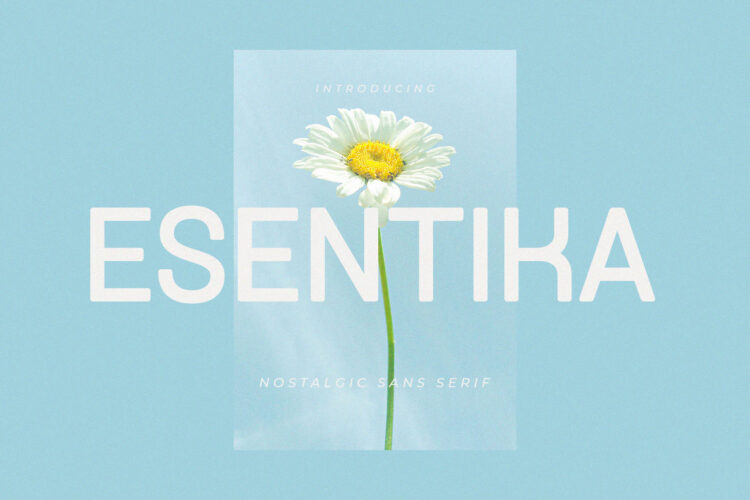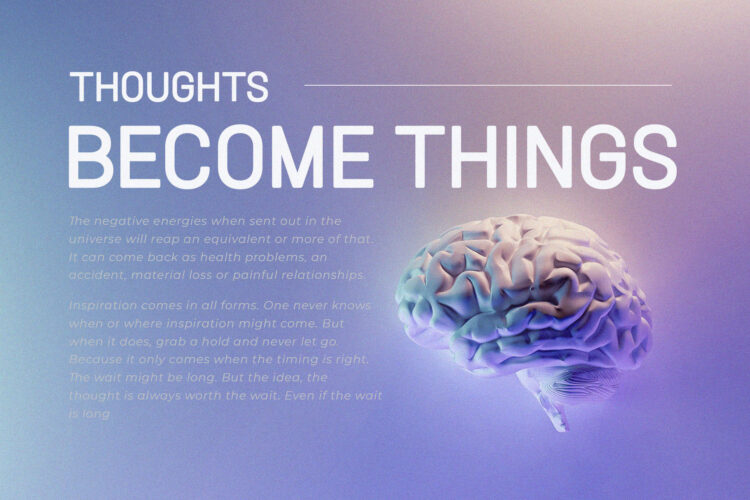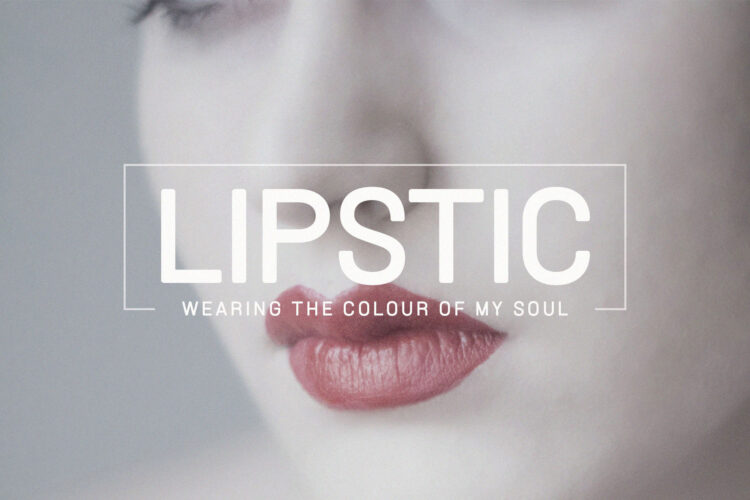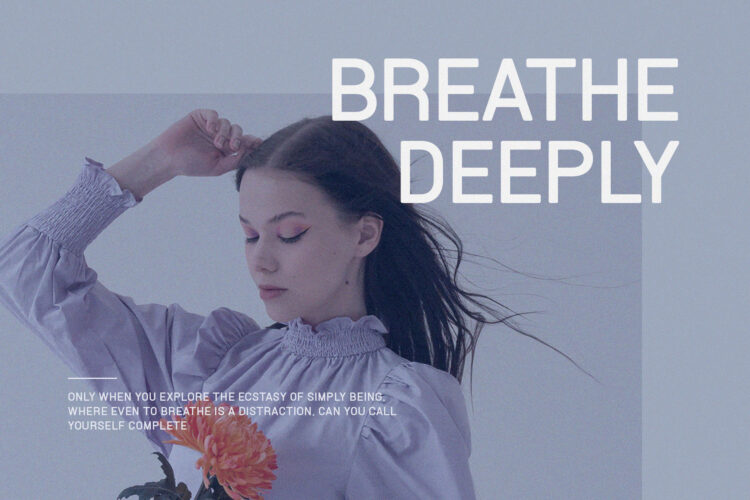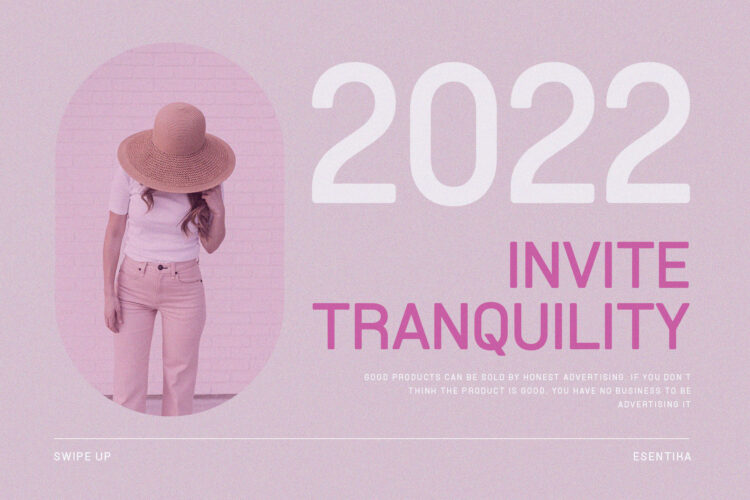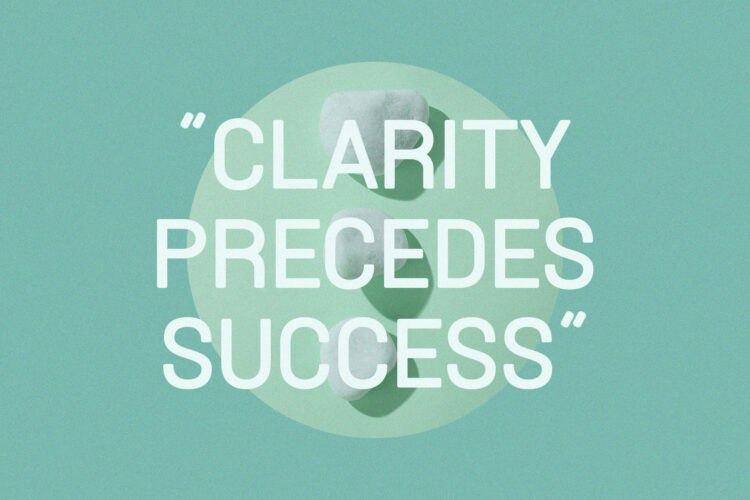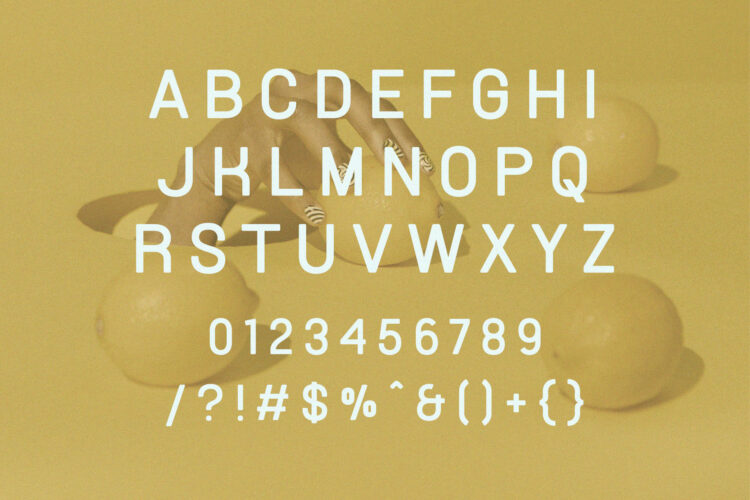
Introducing Esentika Nostalgic Sans Serif.
Esentika is a modern and classy typeface, best used as a display for headings, logos, branding, magazines, product packaging and invitations. Esentika come with clean lines and smooth curves give any project an extra touch of class.